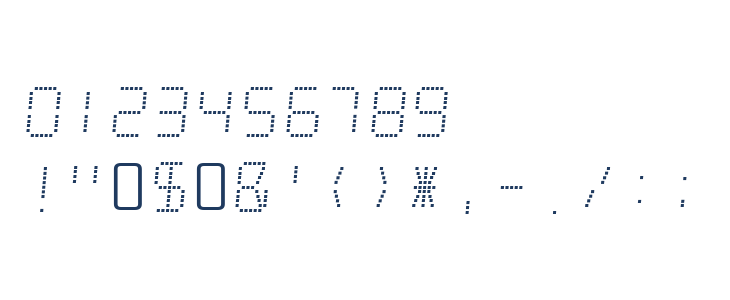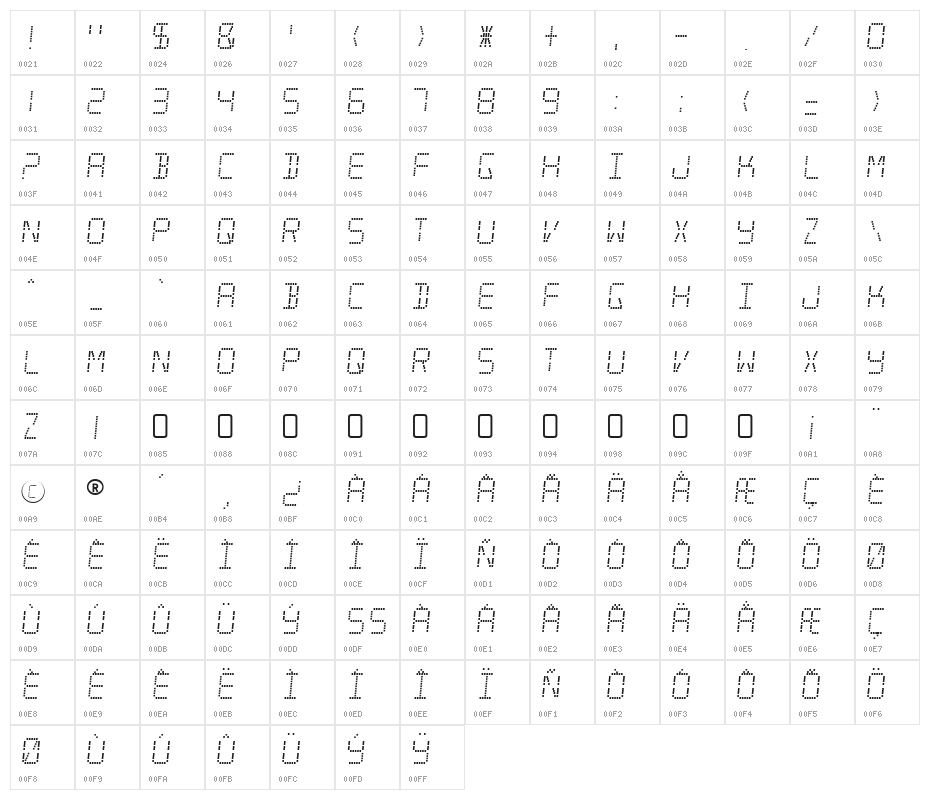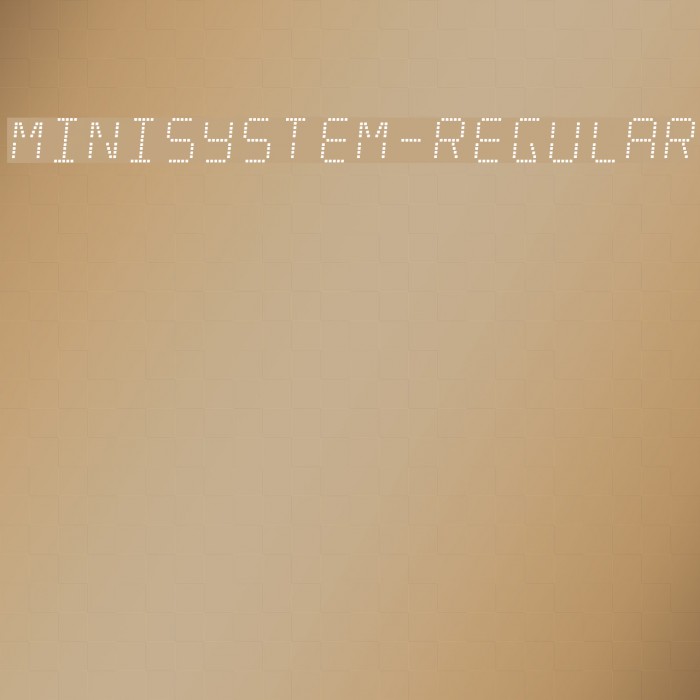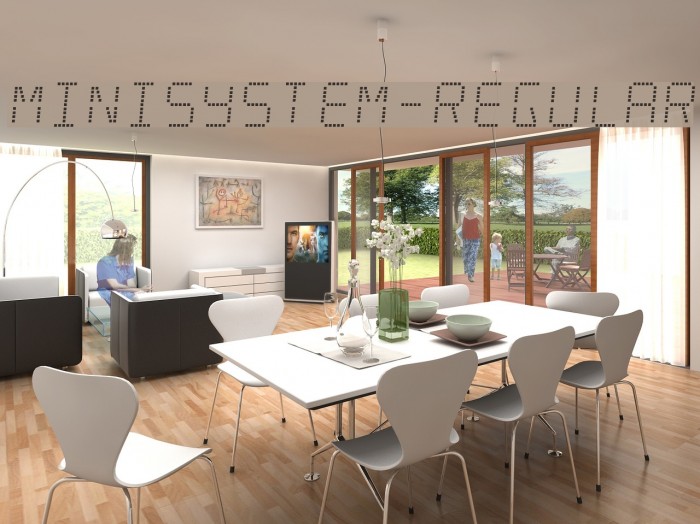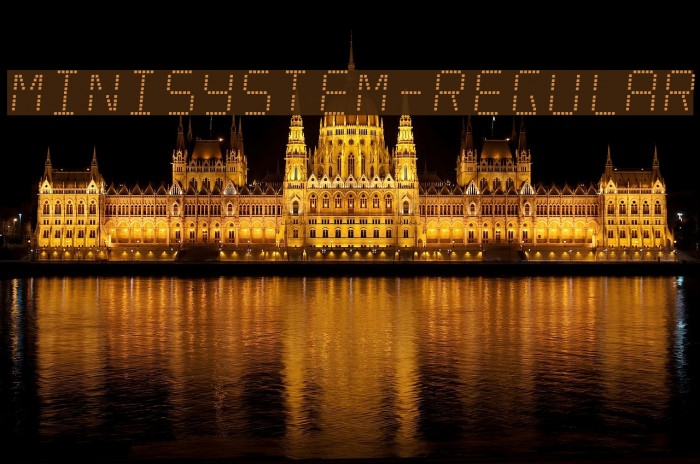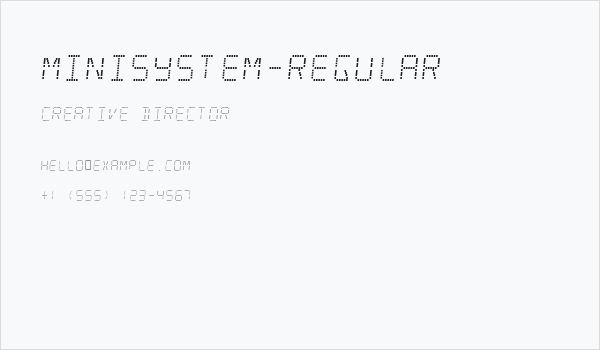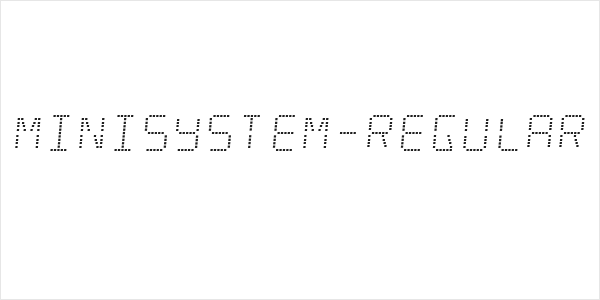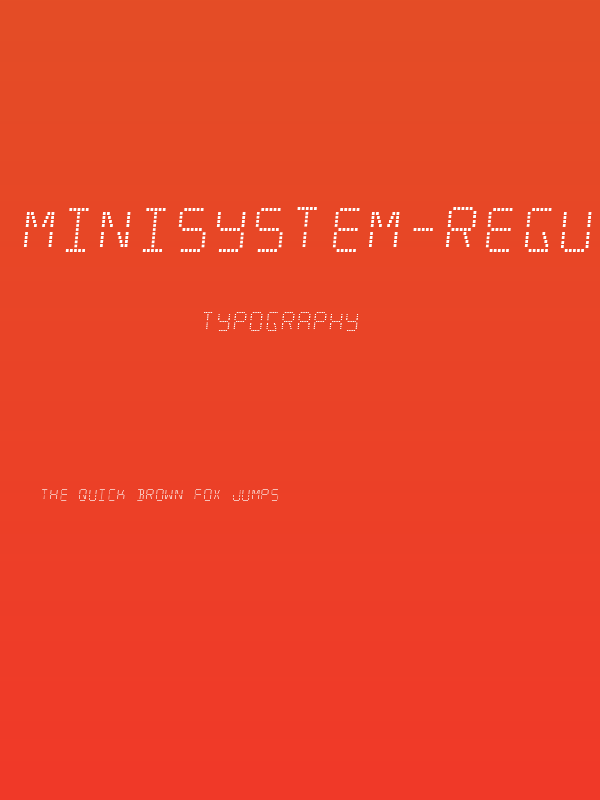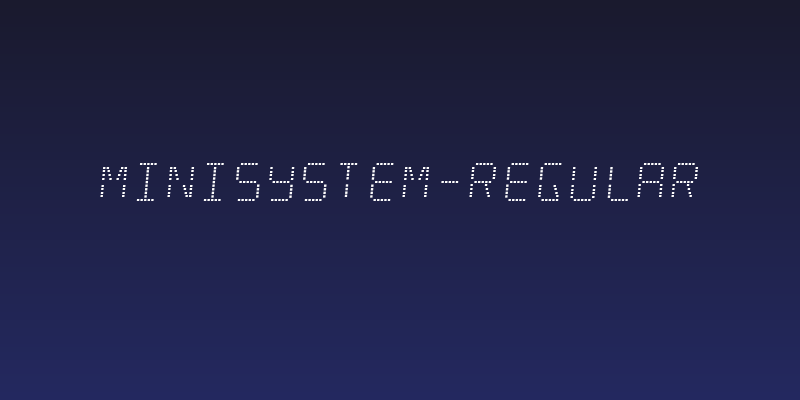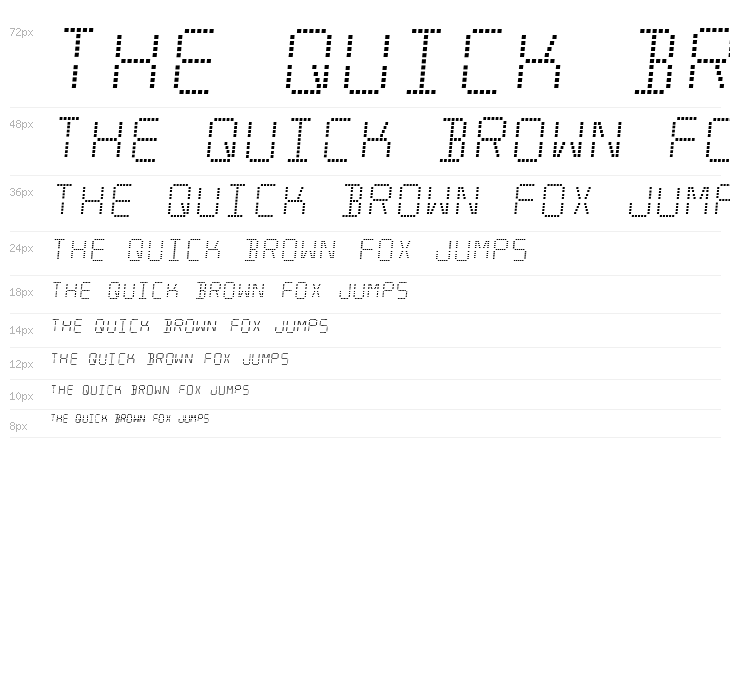
Minisystem-Regular Font
Minisystem-Regular Description
This font features a unique dot-matrix style, reminiscent of digital displays and retro computing. Each character is constructed from a grid of small, evenly spaced dots, creating a pixelated effect that is both modern and nostalgic. The uppercase and lowercase letters maintain a consistent height and width, ensuring uniformity across the typeface. Numbers and special characters are designed with the same dot pattern, providing a cohesive look. The font's geometric precision and clean lines make it ideal for digital-themed projects, while its playful appearance adds a touch of whimsy.
| Use Case | Headlines, Logos, Digital interfaces |
| Proposed Projects | Ideal for digital displays, retro-themed designs, tech branding, and video game interfaces. |